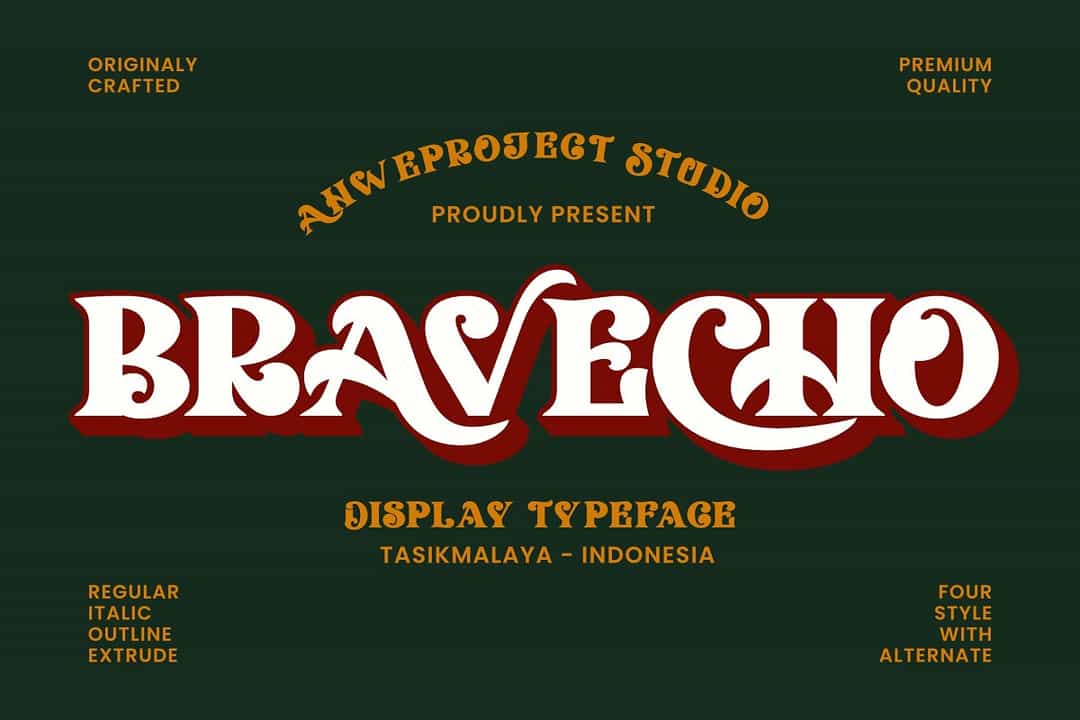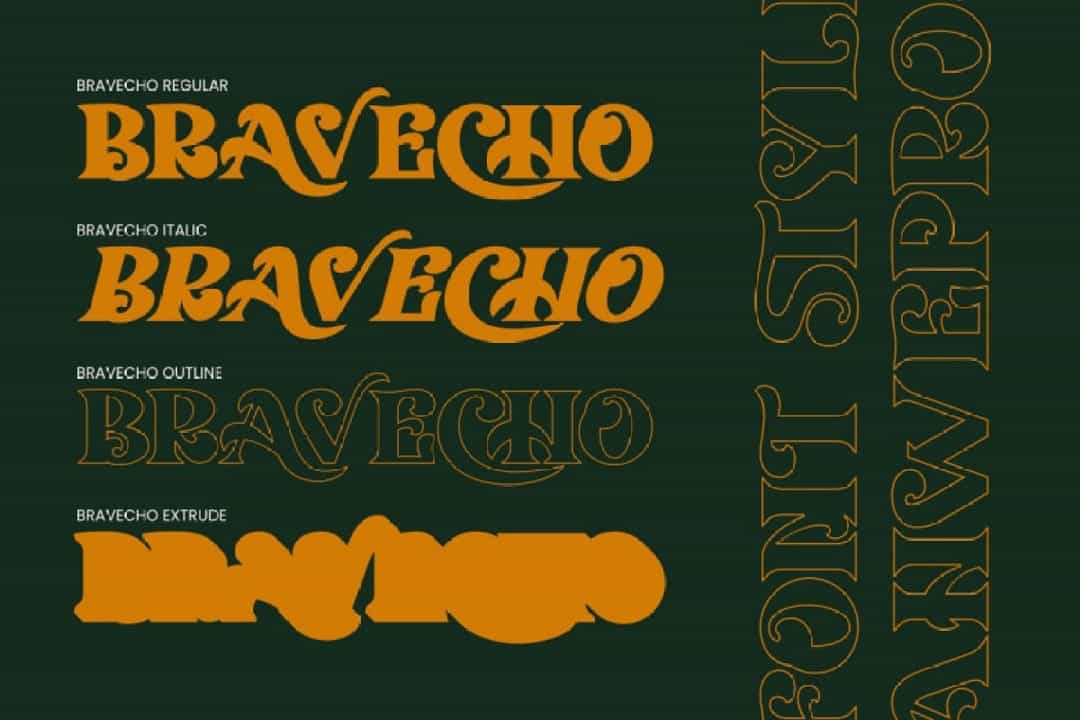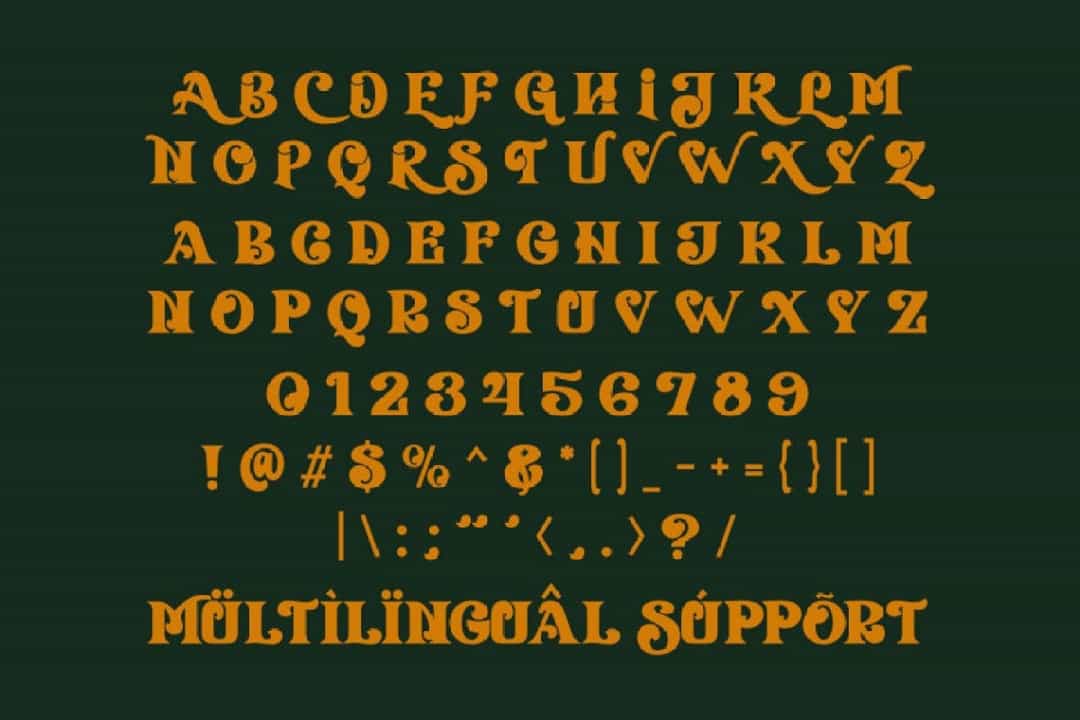
Bravecho font stands out with its highly distinctive display font design and character. Use Bravecho to bring any design concept you may have to life! Crafted carefully to be one of your absolute favourite fonts, Bravecho takes your concept all the way forward! PUA encoded, it gives you access to all characters and washes quickly!